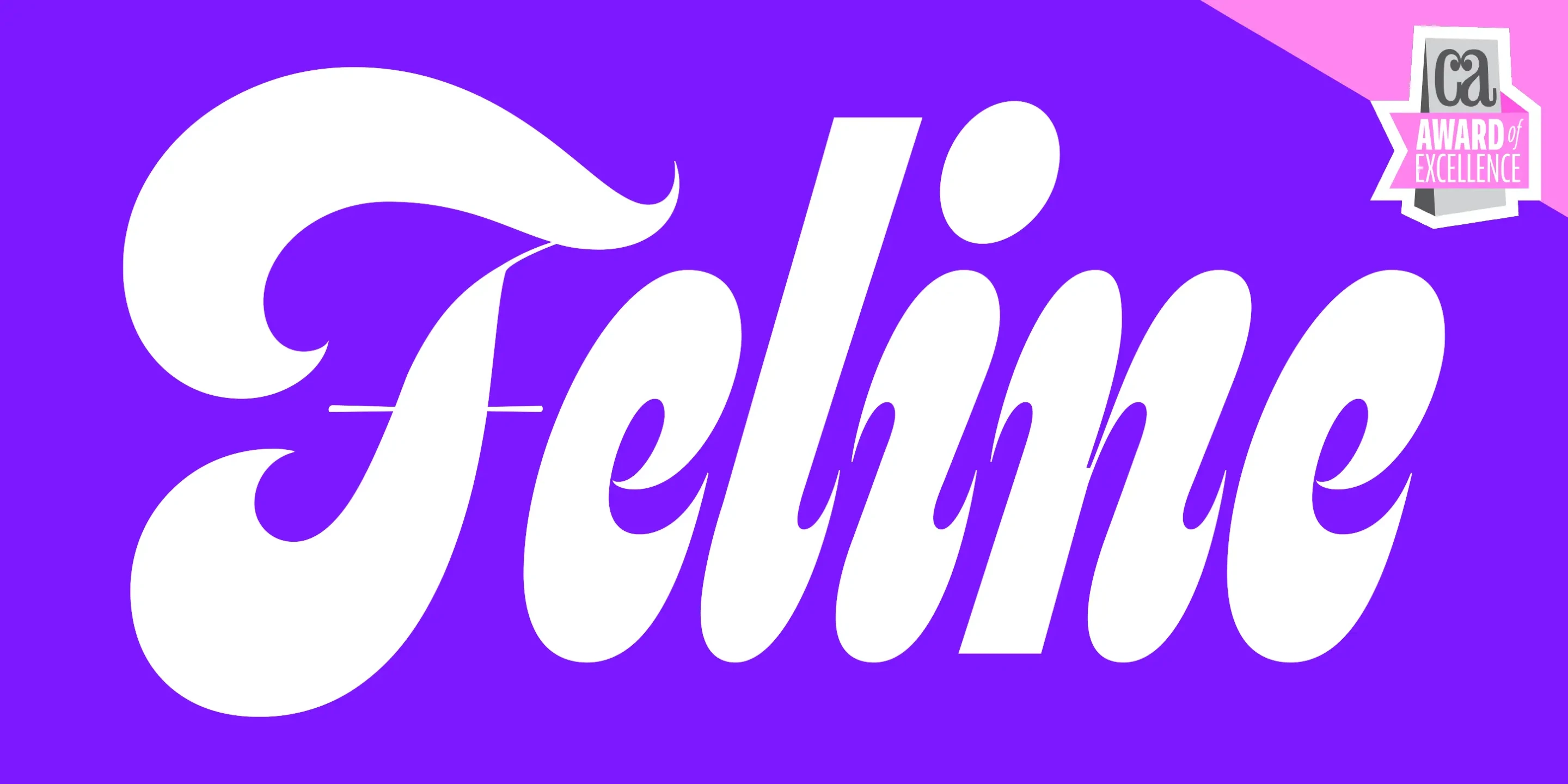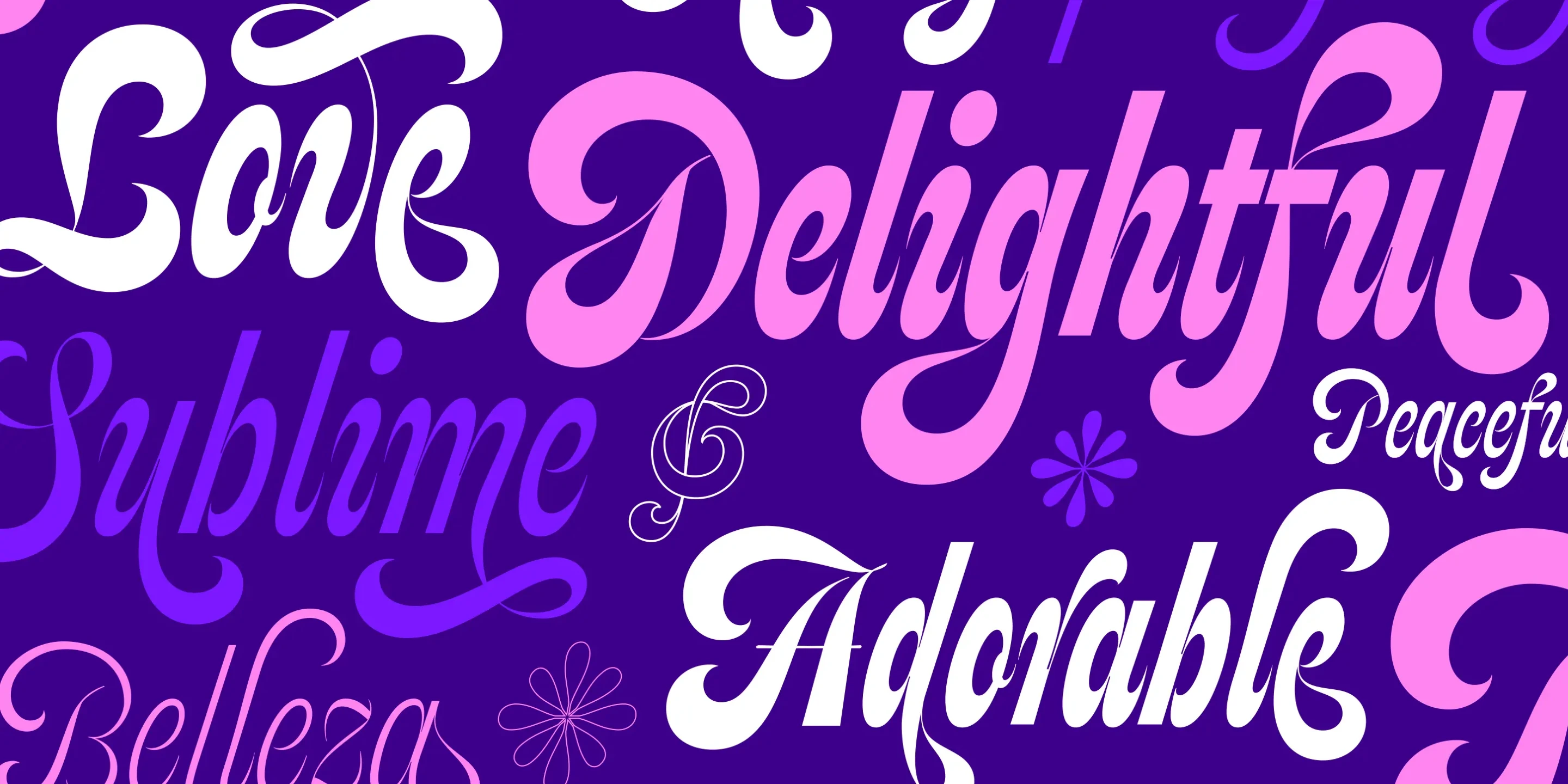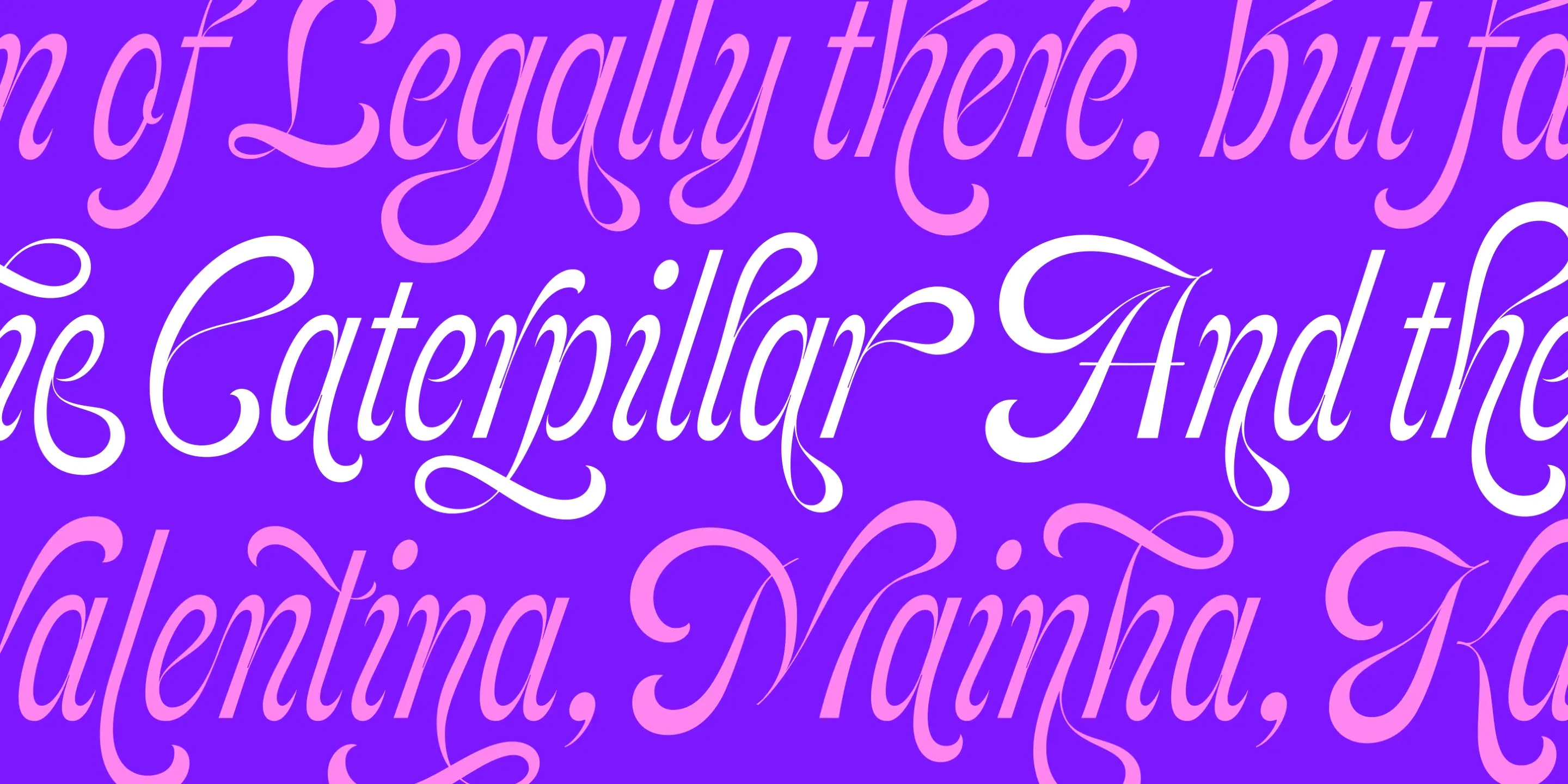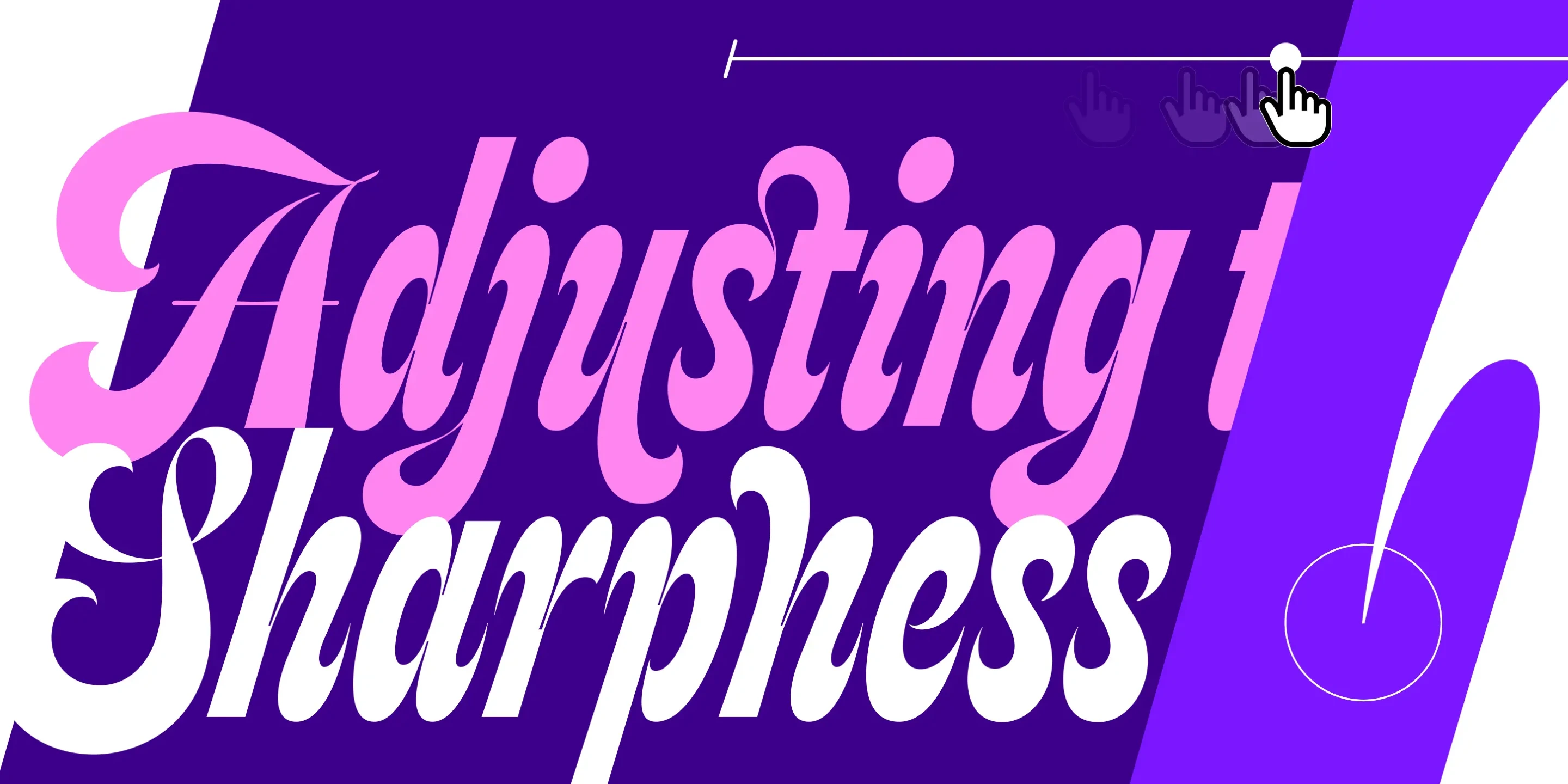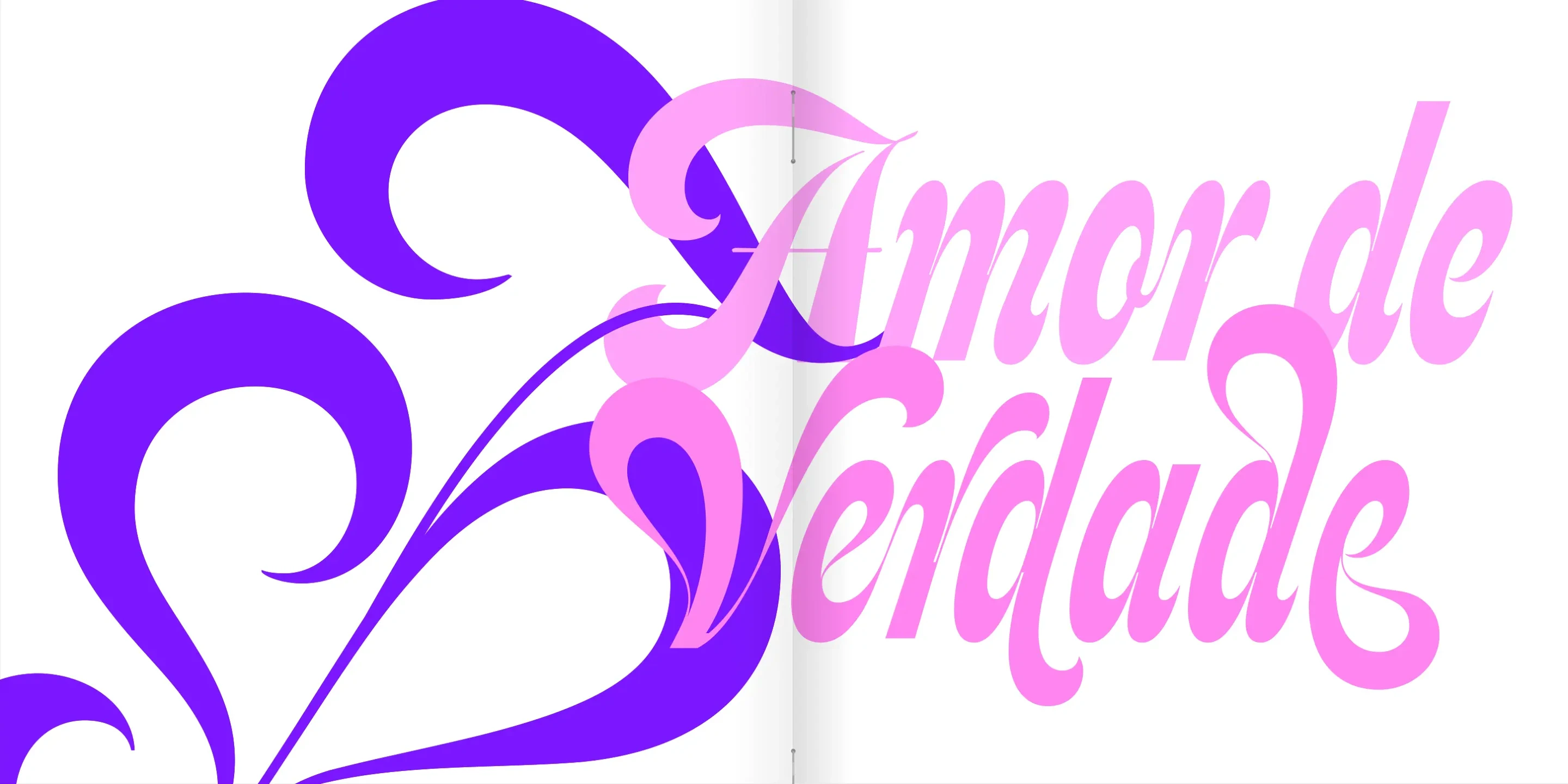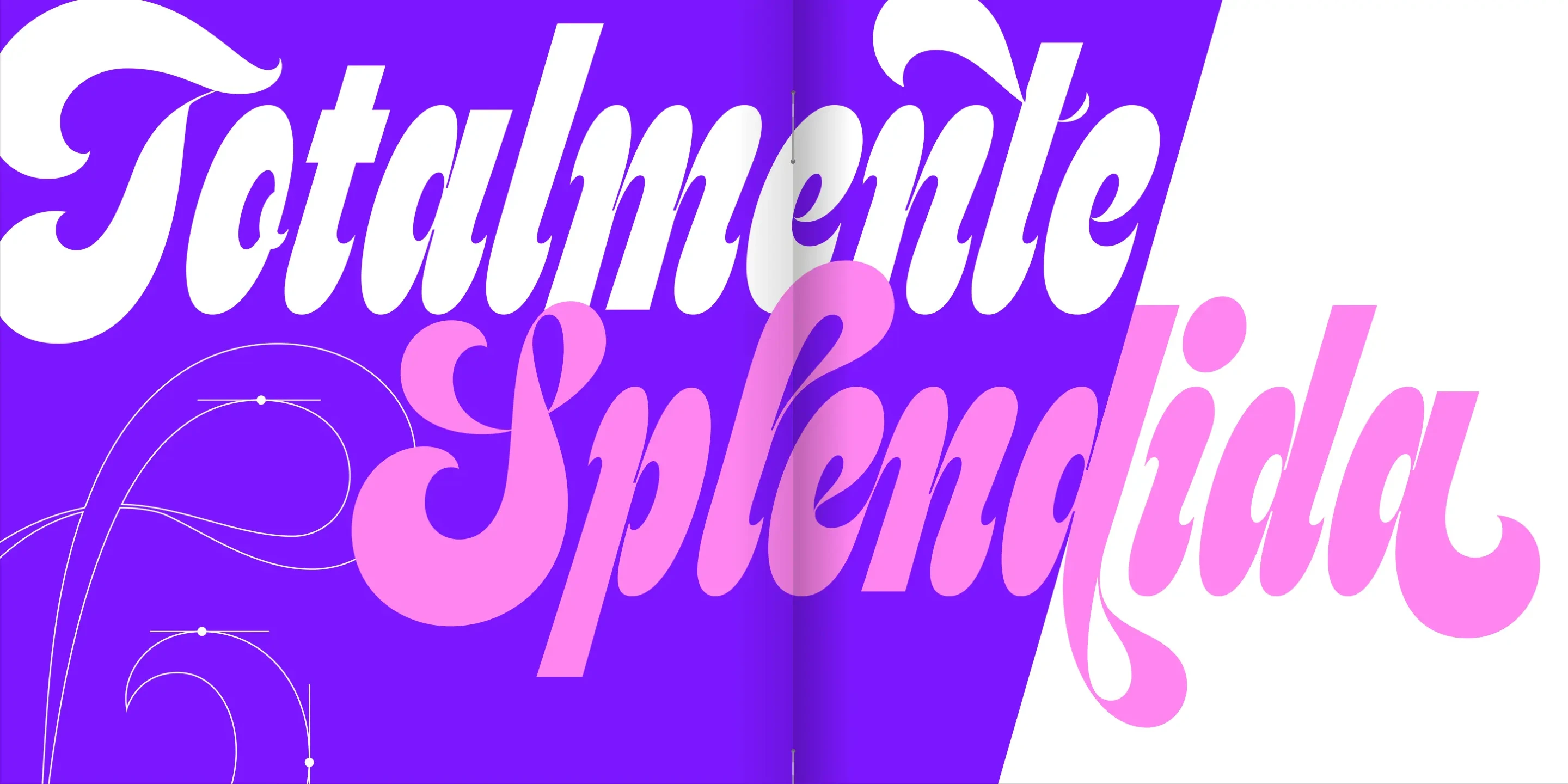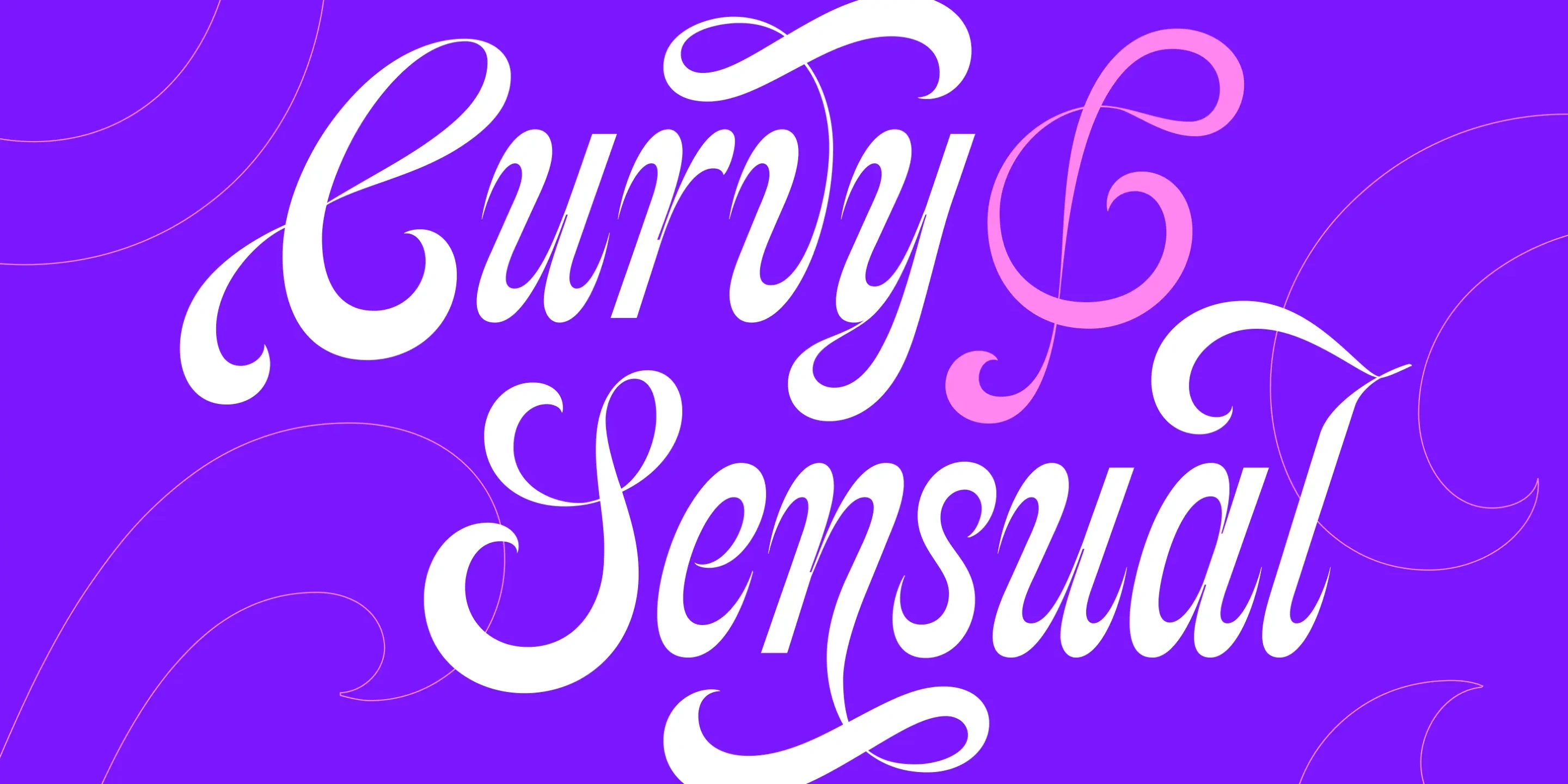
Feline font by Sproviero Type — the word “Feline” in a white, upright, unconnected script with swash details, and a gray and pink “CA Award of Excellence” badge
Feline font by Sproviero Type — the words “Love”, “Delightful”, “Sublime”, “Peaceful”, “Belleza”, and “Adorable” in a flowing, unconnected script, with a treble clef and two floral icons.
Feline font by Sproviero Type — three lines of italic script text in pink and white, with words like “Legally there,” “Caterpillar,” and “Valentina” featuring elaborate swashes and curves.
Feline font by Sproviero Type — the words “Adjusting Sharpness” in a high-contrast script, with a slider bar and a hand cursor icon above.
Feline font by Sproviero Type — the words “Amor de Verdade” in a pink, high-contrast, unconnected script, with purple swashes and flourishes
Feline font by Sproviero Type — the word “Totalmente” in white, and “Splendida” in pink, both in a flowing, unconnected script, with abstract white lines and circles on a purple background.
Feline font by Sproviero Type — the words “Curvy” and “Sensual” in a flowing, unconnected script, with a pink ampersand between them and pink curved lines in the background
Feline Variable
Feline is a sinuous script with exaggerated swashes and playful curves. Inspired by lettering spotted on a vintage pinball machine, it evolved into a liquid and groovy design evocative of other psychedelic 1960s scripts. The twist? The letters rarely connect! Its sculptural rhythm and expressive forms make it ideal for giving posters, magazines, packaging, and brands a voice as distinctive as its letterforms. Available in 6 weights, Thin to Extra Black, and 2 styles, Soft and Sharp, or as a 2-axes variable font.
Ligatures
Discretionary Ligatures
Ornaments
Stylistic Alternates
Swashes
Stylistic Set 1
Stylistic Set 2
Stylistic Set 3
Stylistic Set 4
Stylistic Set 5
Stylistic Set 6
Stylistic Set 7
Stylistic Set 8
Stylistic Set 9
Stylistic Set 10
Stylistic Set 11
Stylistic Set 12
Stylistic Set 13
Stylistic Set 14